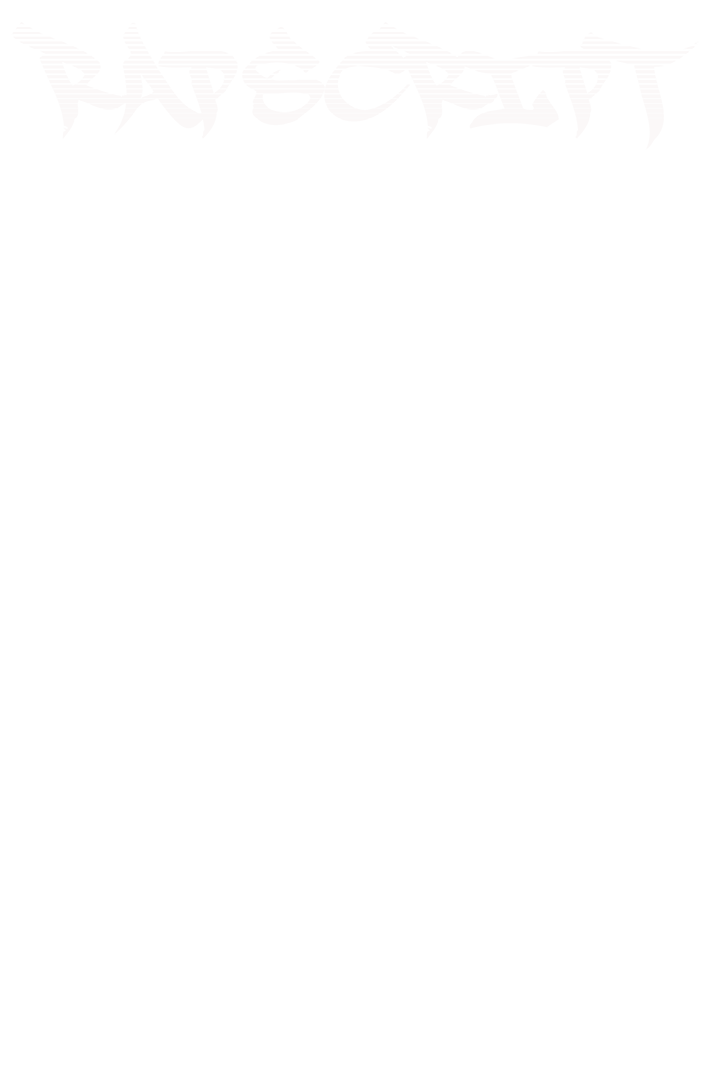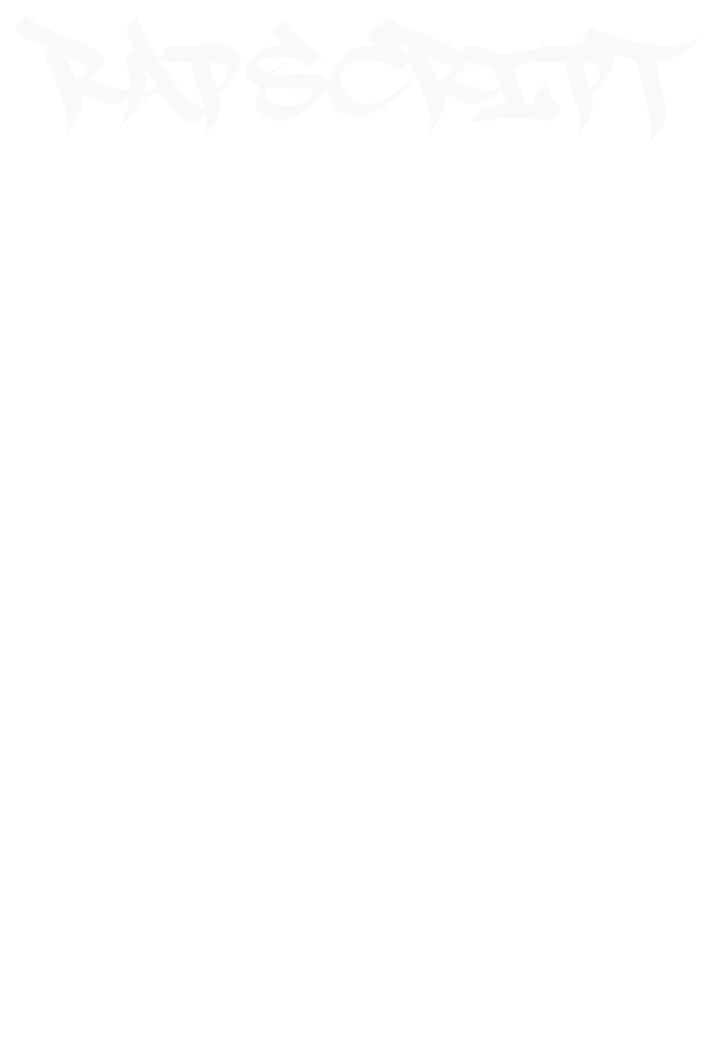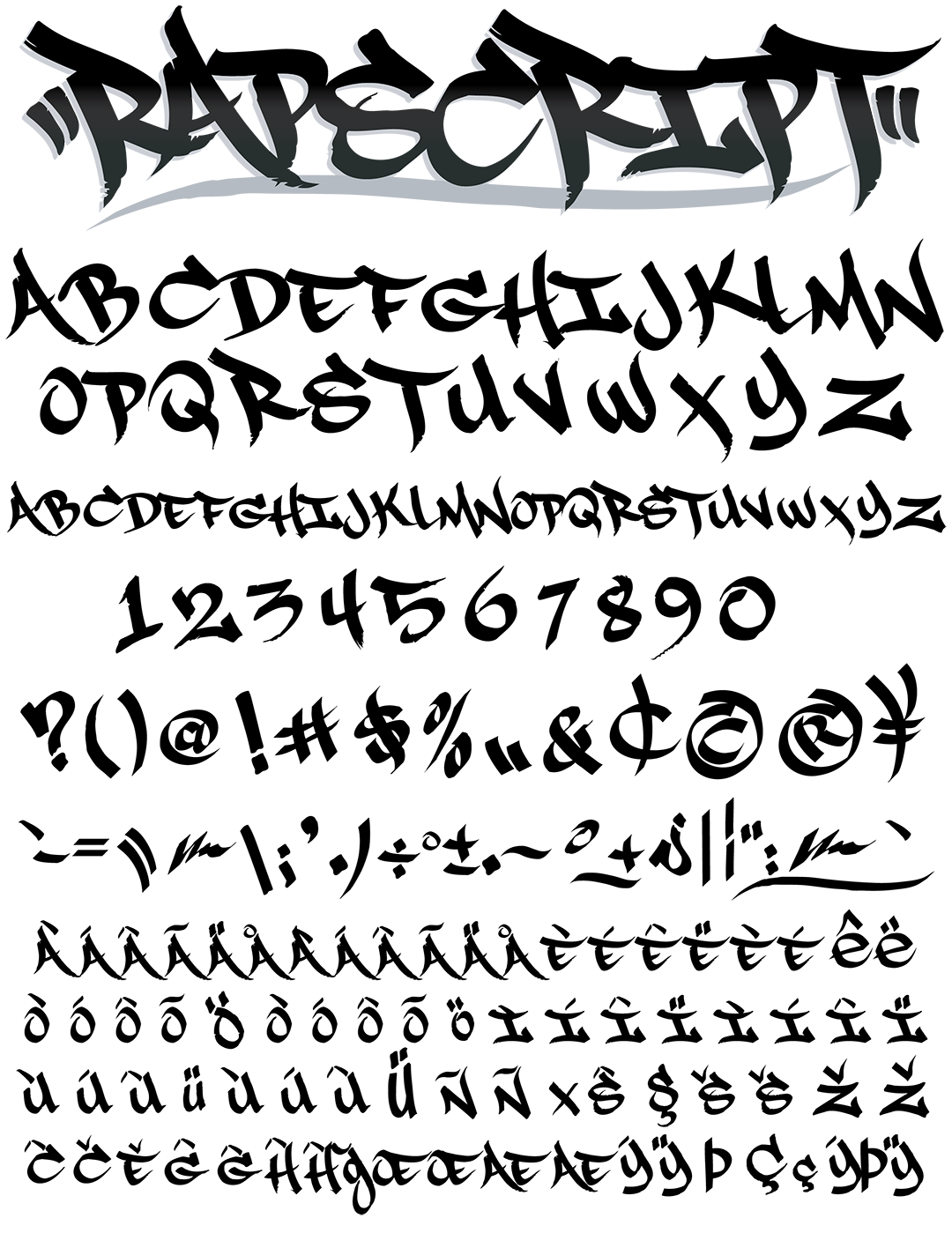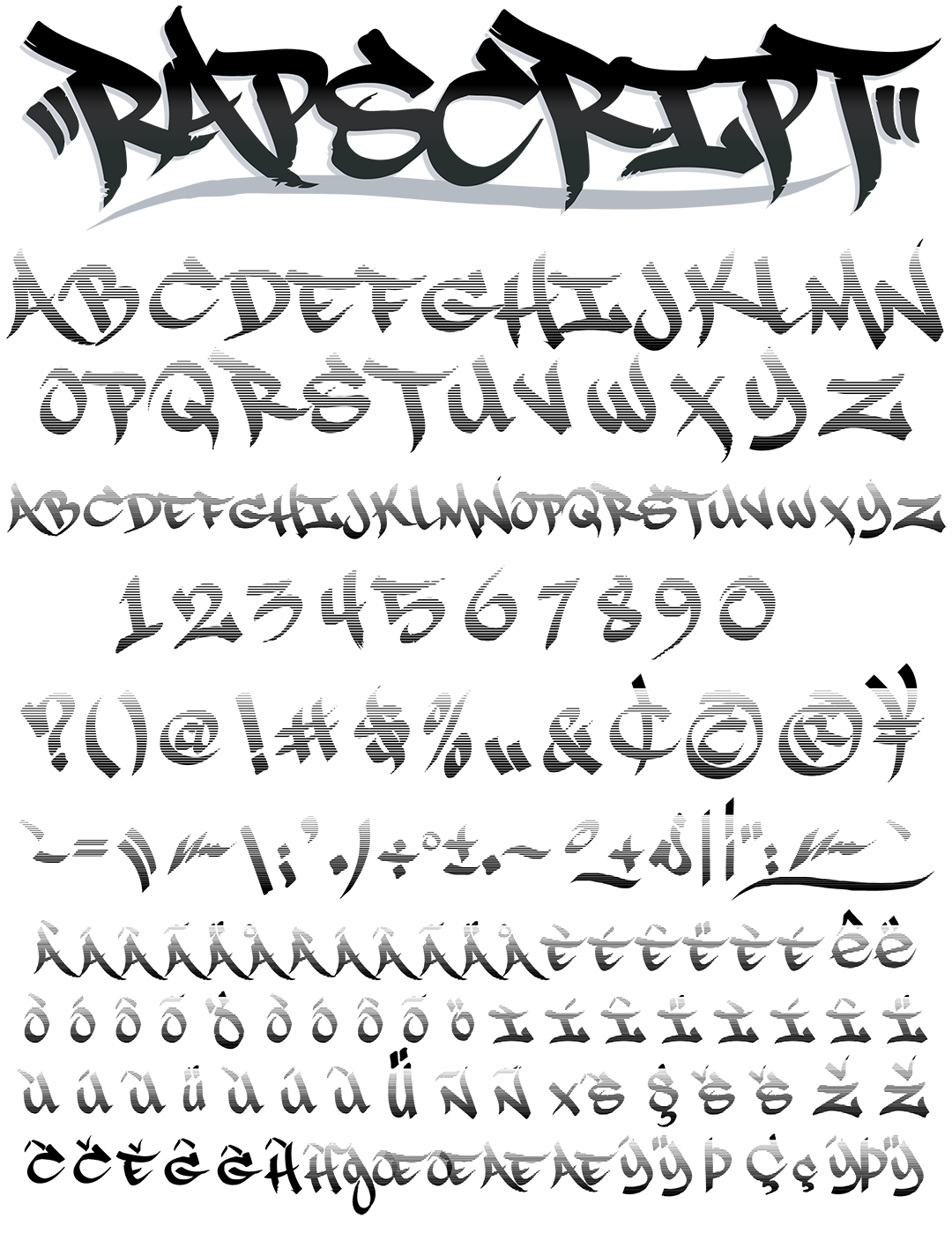
RapScript Font
RapScript Title Image
RapScript Graffiti Alphabet
RapScript Graffiti Font Family
Created to resemble the tag influenced script you might find in an emcees rapbook or in the captions of a graffiti blackbook this 120 Character typeface is provided in 2 styles. The characters were rendered from handwritten words & phrases done with a uniwide marker. Rapscript is a variant of our "Uniwide" font family. This simple & legible calligraphic tag style is a good choice when wilder graffiti styles are too much.